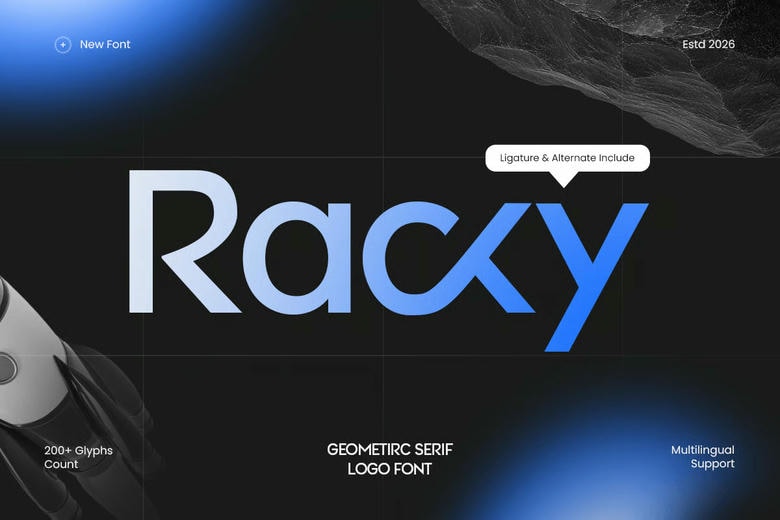
Racky Font
Racky Font is a modern display typeface designed to bring clarity, structure, and professionalism to corporate branding. Racky takes inspiration from geometric shapes and modern business design. It is made for brands that want precision, consistency, and a clean visual identity.
Racky’s precise shapes, balanced proportions, and refined structure give it a strong and reliable look. The design is easy to read and keeps a modern, professional feel, which makes it a great choice for corporate logos and branding projects.
Racky Logo Font